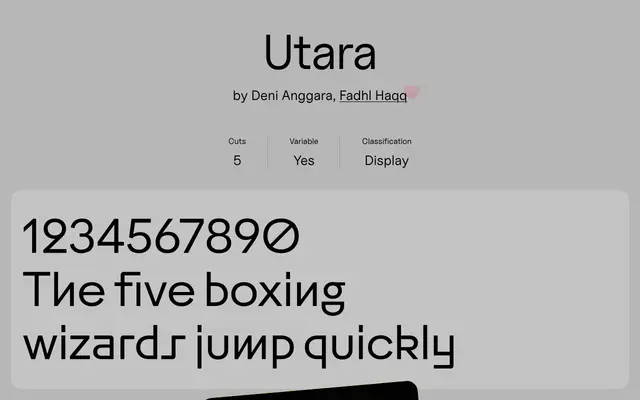
Utara
A free, variable display typeface by Deni Anggara and Fadhl Haqq, available in five cuts under the SIL Open Font License.
Released under the SIL Open Font License 1.1, Utara is freely available for both personal and commercial projects without restriction beyond redistribution rules. The family ships in five cuts including a variable font, giving designers flexibility across display and headline contexts. Its open licensing makes it a practical choice for projects where budget or redistribution requirements would otherwise rule out proprietary typefaces.
Classified explicitly as Display by the foundry; the typeface is designed for large-scale, expressive use rather than continuous text setting.